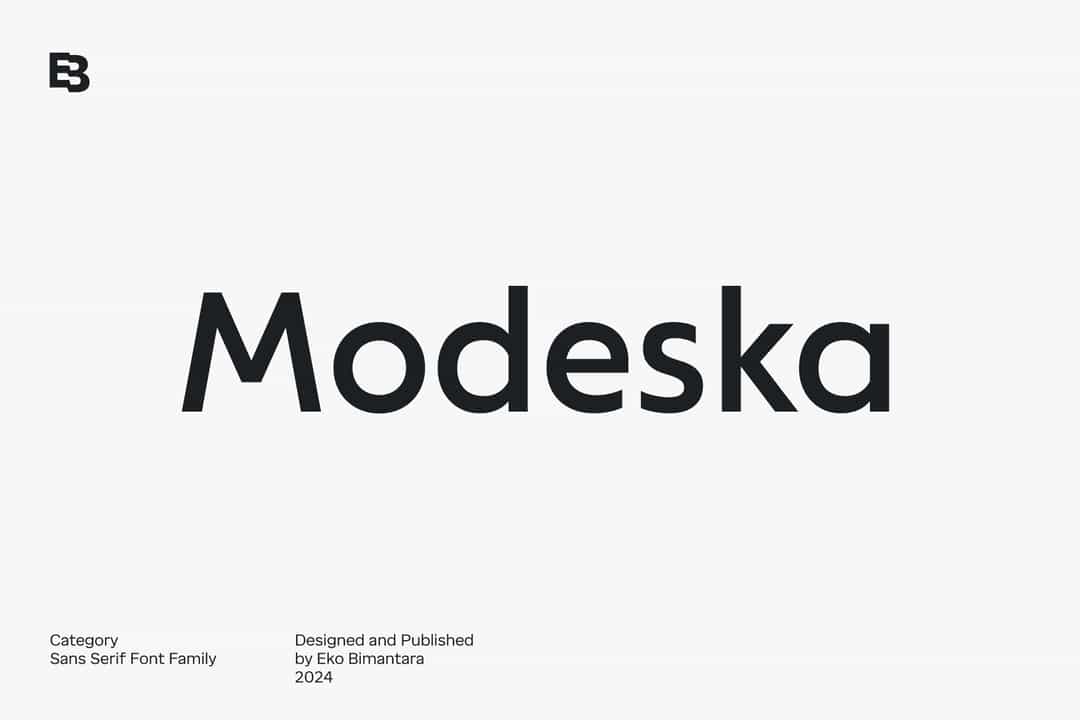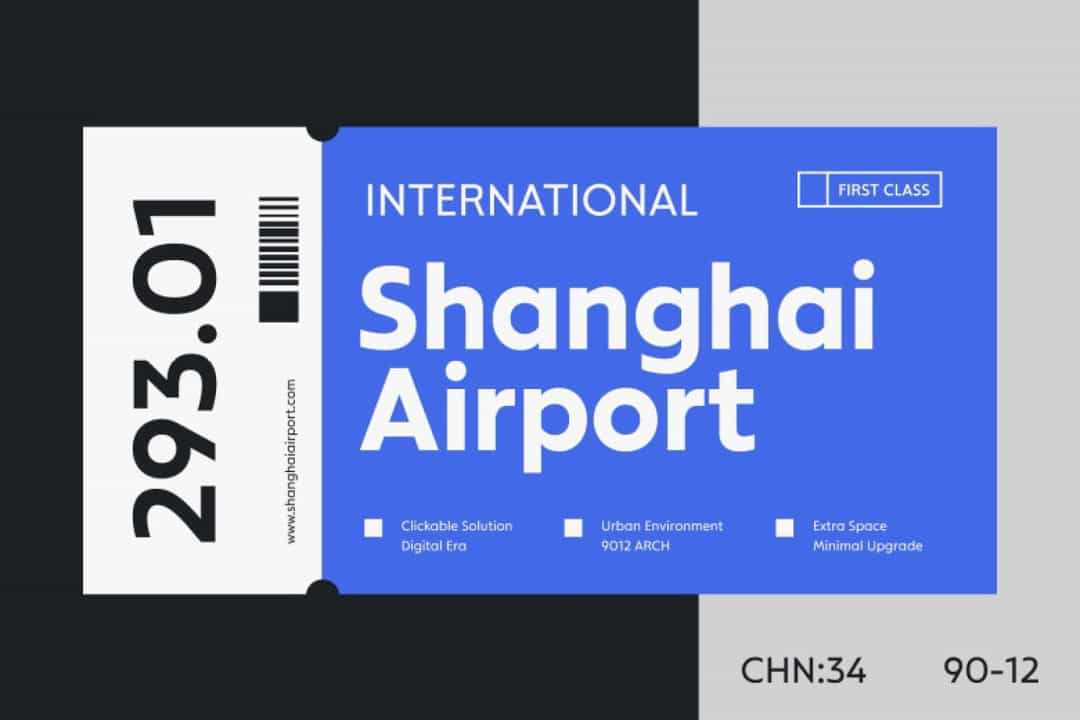
Modeska is an elegant geometric sans font which expands on the Modeco family of fonts with its own distinct twist. Combining elements of classic and humanistic styles, Modeska strikes an attractive balance between geometric precision and timeless elegance – 18 styles from thin through black complement its precise geometry with matching obliques and Latin characters for maximum impact.